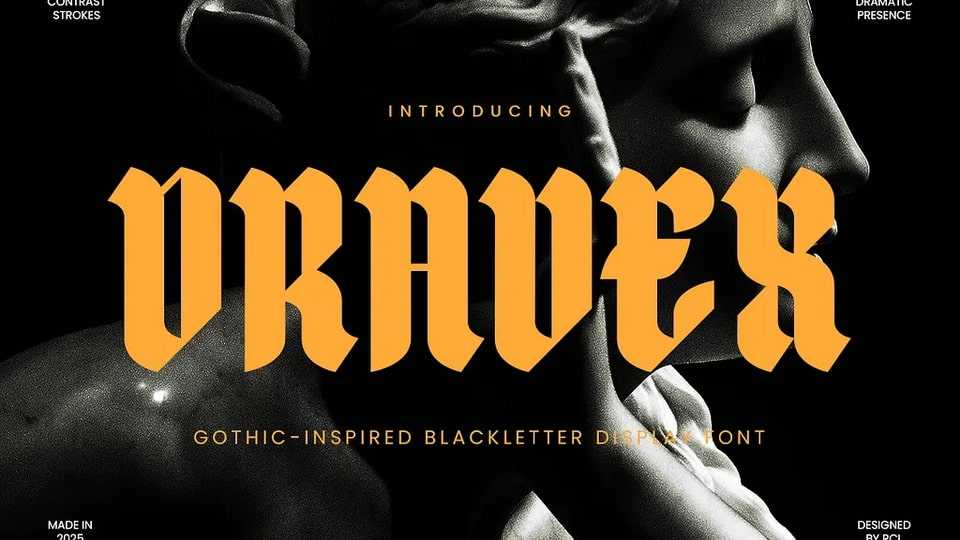
Download Dravex font, a gothic-inspired blackletter display typeface that blends old-world drama with modern attitude. Featuring bold contrast strokes, sharp edges, and assertive presence, it’s perfect for making a visual statement.